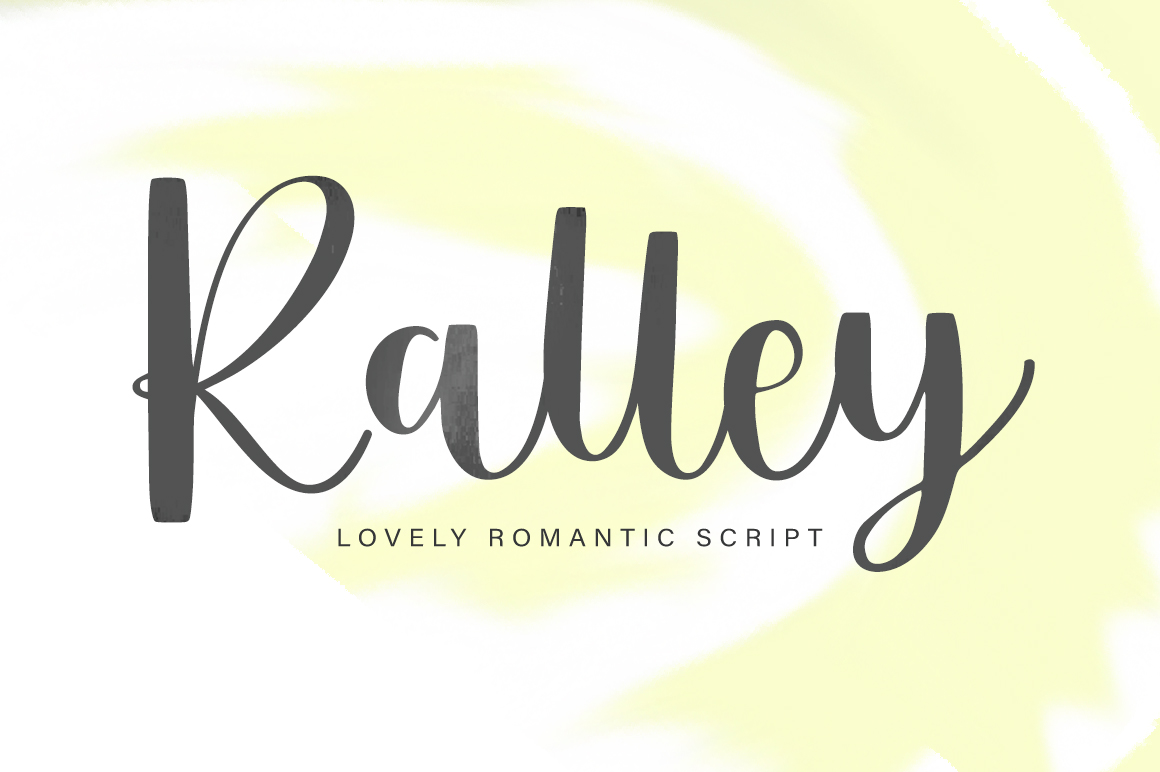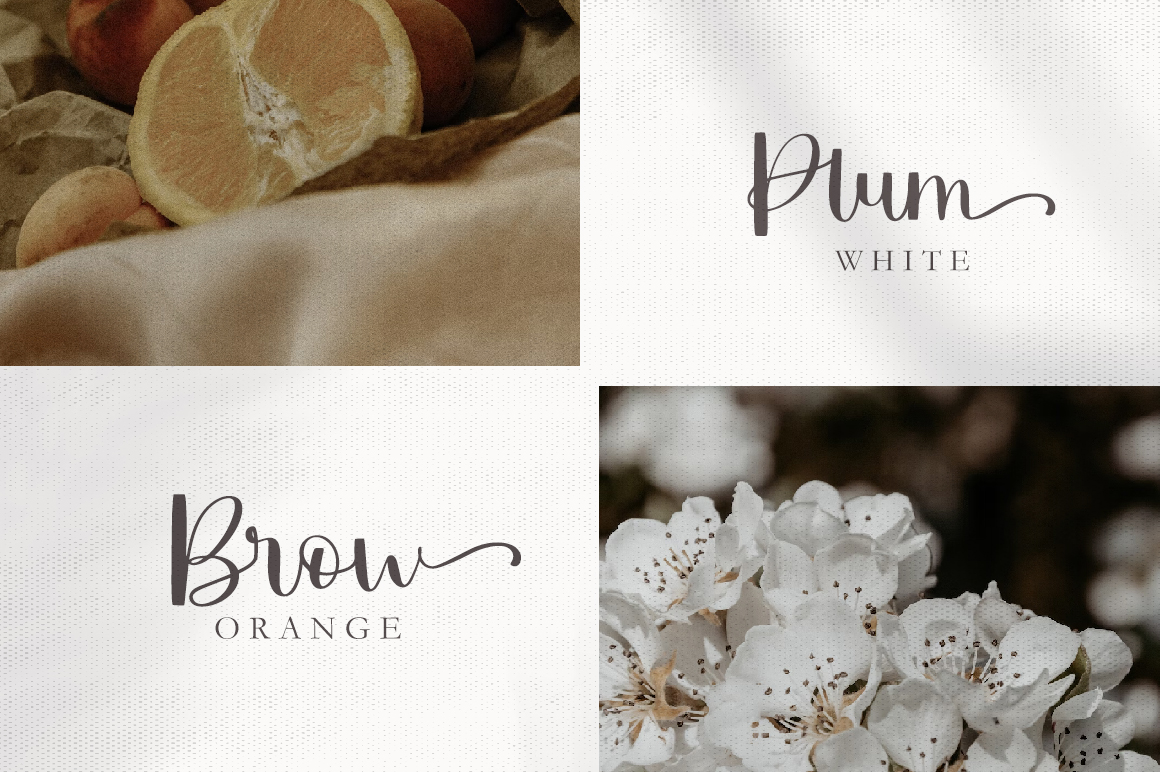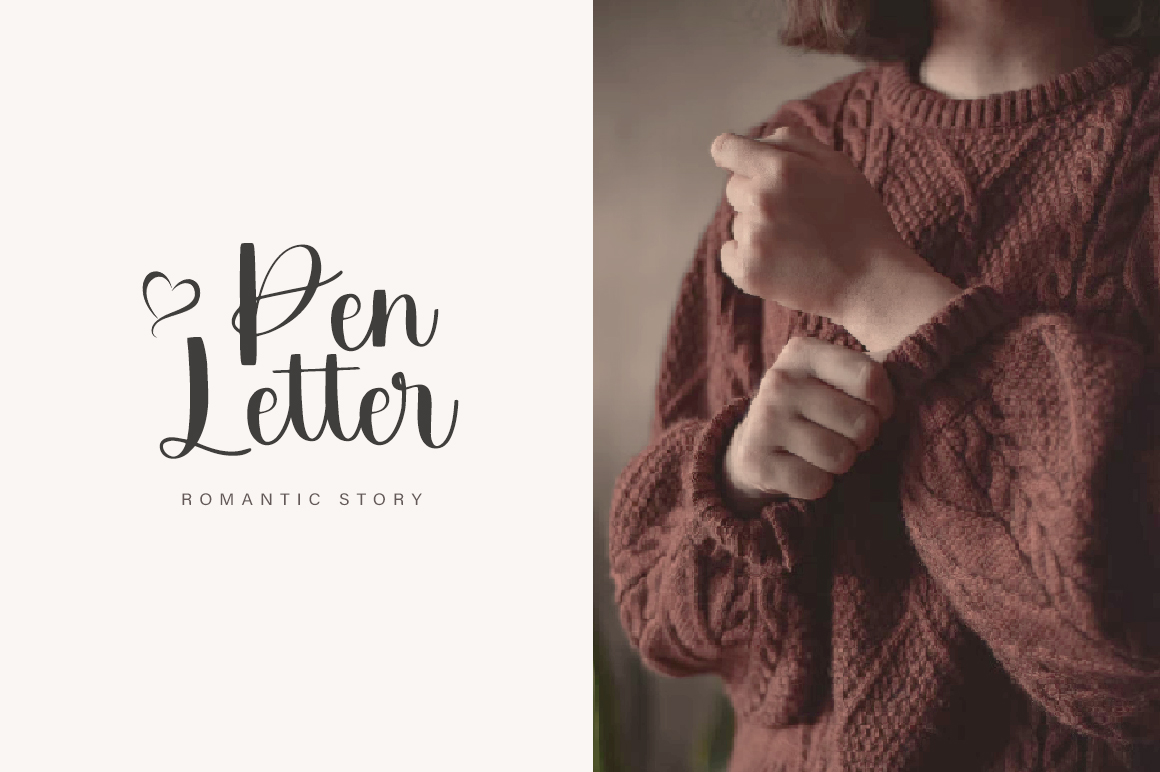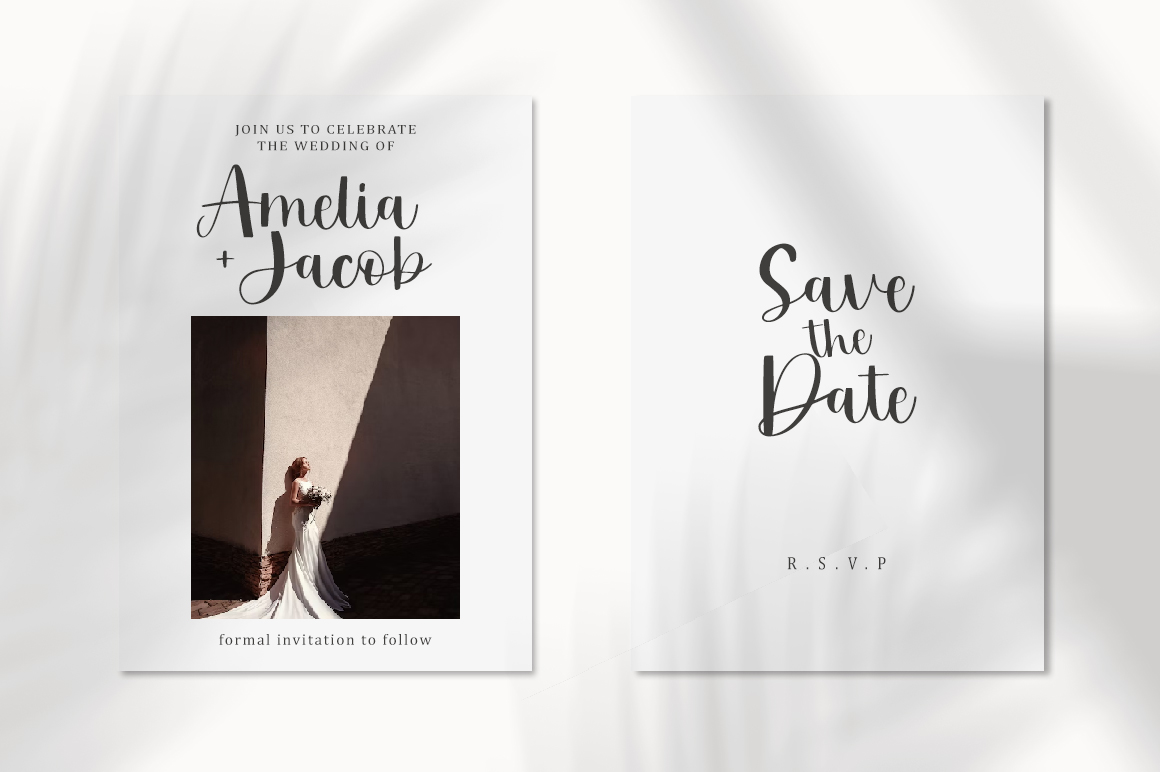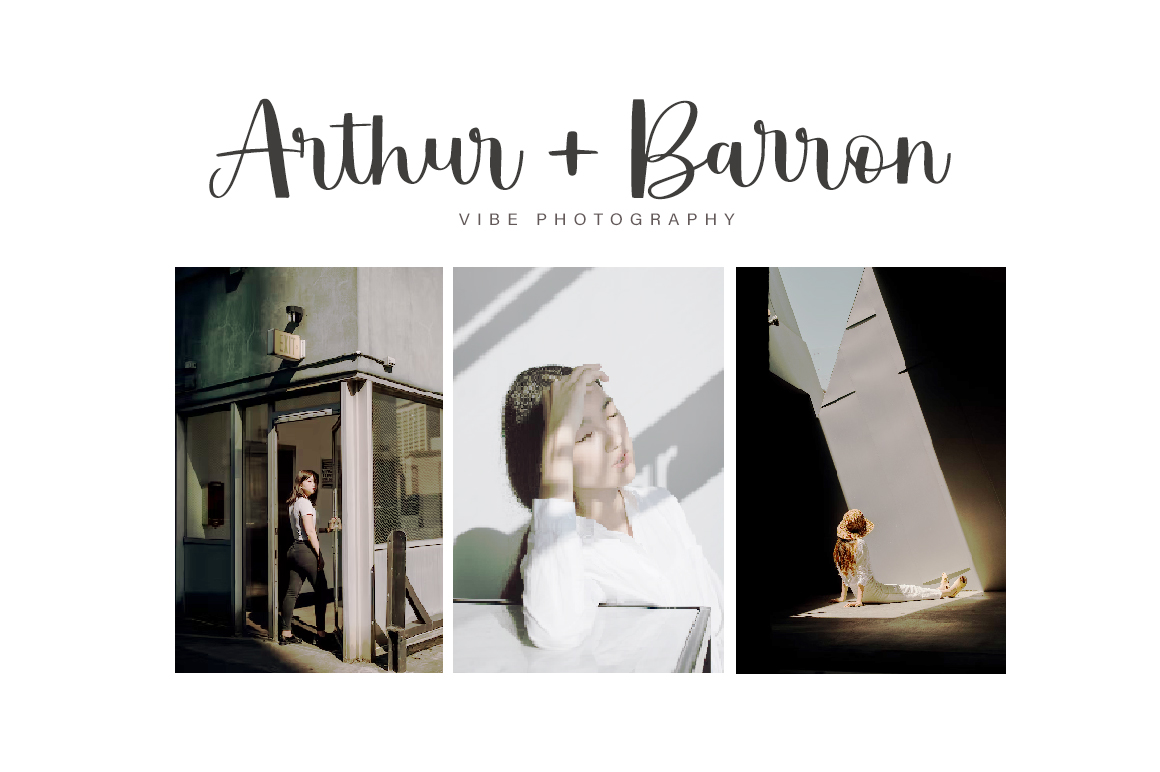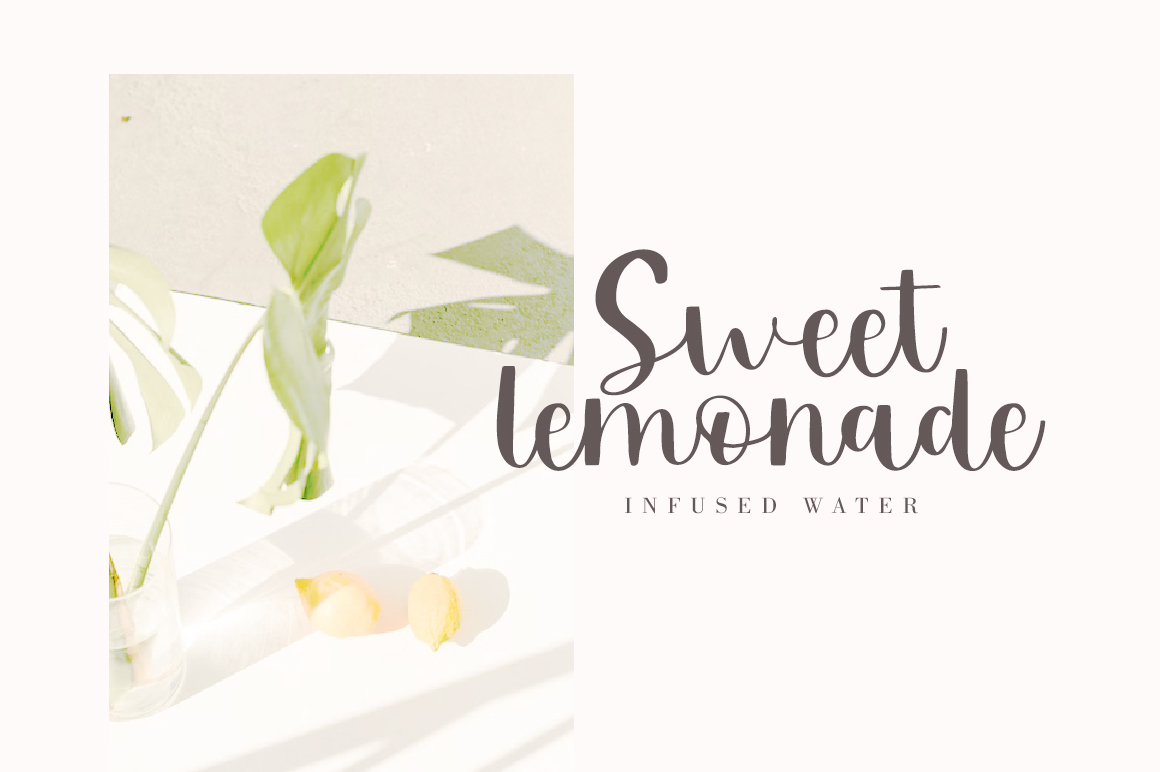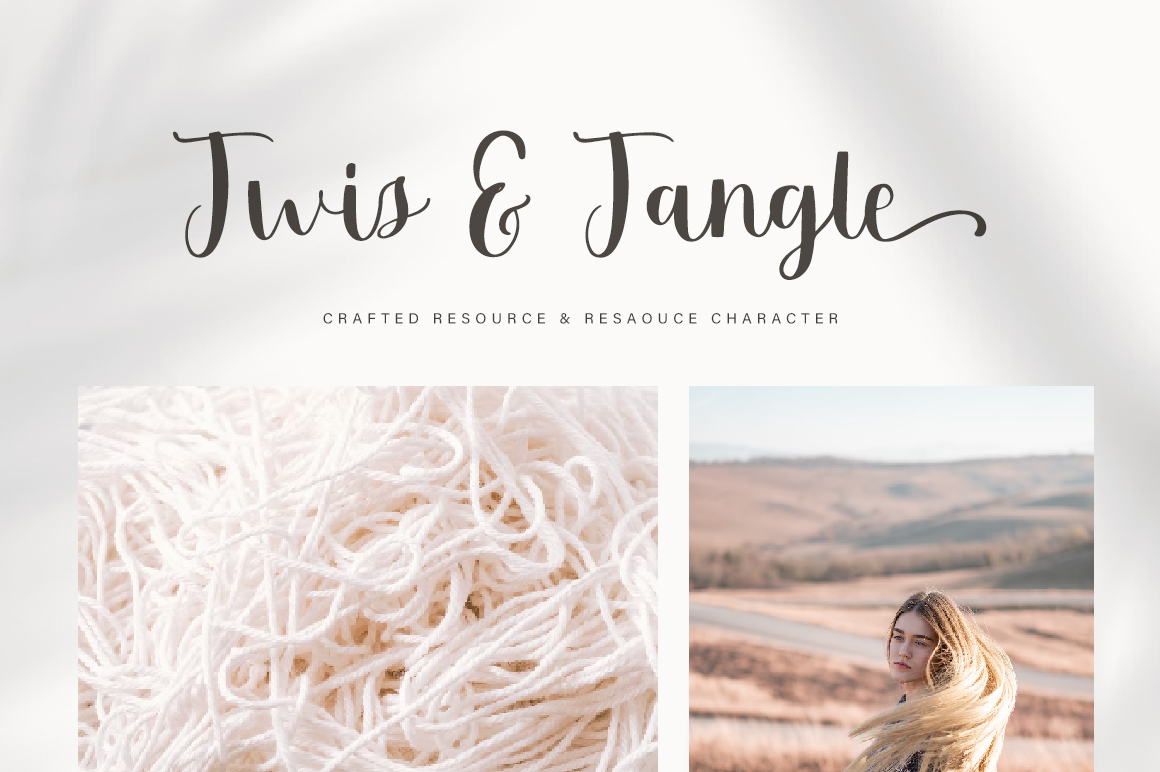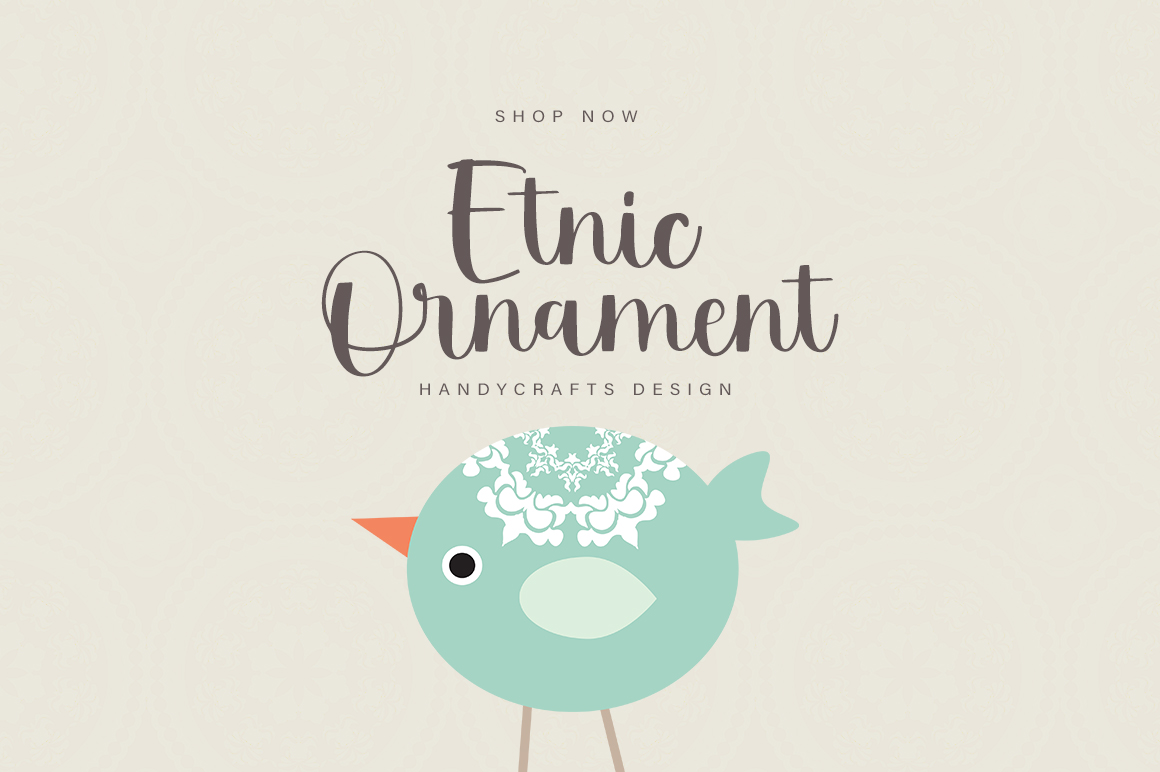
Introducing “Ralley” a lovely romantic script font.
Ralley is a lovely romantic script font that exudes elegance with a playfully modern look!
Ralley is built with OpenType features and includes start and end swashes, numbers, punctuation, alternatives, ligatures and also supports other languages.
This font is perfect for modern projects, headers, blogs, brand, invitations, wedding decorations, cricut projects, crafts, svg files, shirts, quotes, great cards, branding, prints, logos, and more!